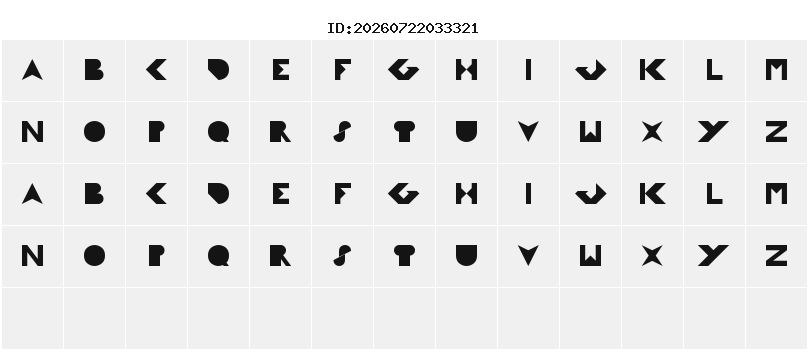
• Font Name: FLIGHT STERWADESS
About FLIGHT STERWADESS.ttf
FLIGHT STERWADESS.ttf is a modern, elegant sans-serif font designed for ultimate readability and visual harmony. Perfect for branding, headlines, web design, and print materials.